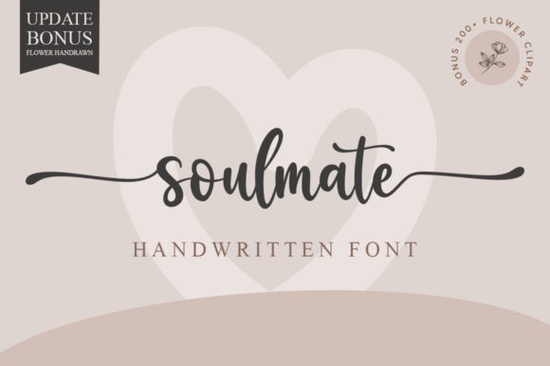
If you're looking for a handwritten font that brings warmth and personality to your designs without sacrificing elegance, the Soulmate Font is worth a closer look. Designed with flowing strokes and delicate swashes, it’s especially well-suited for projects that call for a personal yet polished touch like wedding stationery, custom greeting cards, or even boutique branding.
What sets Soulmate apart is its PUA (Private Use Area) encoding. This means you don’t need advanced design software or workarounds to access alternate characters, ligatures, or decorative endings. Everything is built right in, so whether you’re using Canva, Adobe Illustrator, or even basic word processors that support OpenType features, you’ll be able to use the full range of glyphs with ease.
Where does Soulmate work best?
This font shines in contexts where emotion and authenticity matter. Think:
- Wedding invitations – Its romantic flow complements floral motifs and minimalist layouts alike.
- Thank-you notes and greeting cards – Adds a handcrafted sincerity that printed fonts often lack.
- Small business logos – Ideal for bakeries, florists, or lifestyle brands wanting a friendly but refined identity.
- Quote graphics and social media posts – The subtle variations in letterforms keep text visually engaging.
Because it’s a script font with natural rhythm, avoid using it in all caps or at very small sizes it’s meant to be read comfortably at medium to large scales.
How does it compare to other handwritten fonts?
If you’ve browsed Creative Fabrica’s script collection, you might have come across options like the Book Signature Font, which leans more toward professional autograph styles, or the playful bounce of the Peach Club Font. Soulmate sits comfortably between formality and whimsy less rigid than vintage-inspired scripts like the Vintage Handmade Font, but more structured than something as festive as the Christmas Lights Font.
For layered designs, pairing Soulmate with a clean sans-serif works beautifully. And if you’re creating textured overlays or watercolor backgrounds, try combining it with the Background Signature Font for depth without clutter.
Who should use this font?
Print-on-demand sellers will appreciate how well Soulmate reproduces on mugs, tote bags, and framed prints it holds up crisply in both digital and physical formats. Crafters making DIY wedding kits or handmade journals can use it for printable templates that feel bespoke. Small business owners launching a new brand can establish instant personality without hiring a custom lettering artist.
Even hobbyists designing personal projects like family recipe cards or anniversary keepsakes will find it intuitive and expressive. Since it includes both standard and stylistic alternates, you can tweak words to avoid repetitive letter shapes, giving each phrase a unique rhythm.
Tips for getting the most out of Soulmate
- Enable “Stylistic Alternates” or “Contextual Alternates” in your font panel this automatically swaps in swashes or connected letters where appropriate.
- Avoid overusing swashes; one or two per line is usually enough to add flair without reducing readability.
- Pair it with ample white space. This font breathes best when not crowded by heavy graphics or dense text blocks.
And remember: while it’s tempting to use script fonts for body text, Soulmate is best reserved for headlines, short phrases, or decorative accents.
Ready to try it?
If your project calls for a handwritten font that feels both intentional and heartfelt, Soulmate delivers without complexity. It’s versatile enough for commercial use (always check the license for your specific plan), easy to install, and thoughtfully designed for real-world application not just pretty mockups.
- Is my design meant to evoke warmth, intimacy, or celebration?
- Will the text appear at a readable size (generally 18pt or larger)?
- Do I need access to swashes and alternates without manual glyph hunting?
If you answered “yes” to most of these, Soulmate could be the perfect fit for your next creative venture.